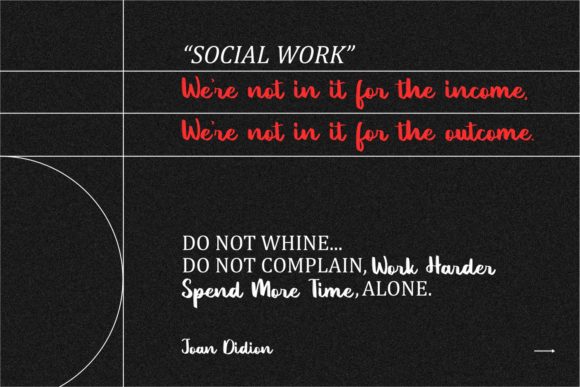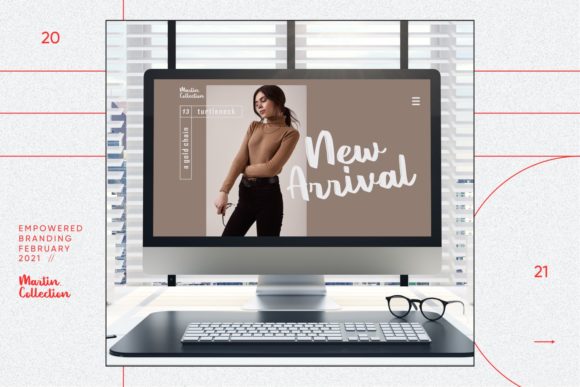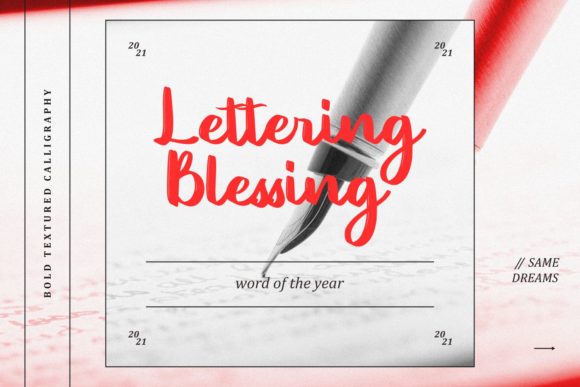
Introduction to Omniface Font
Have you ever stared at a blank canvas, trying to decide on the perfect font to bring your creative project to life? For designers, finding the right font can be the difference between a mediocre and a masterpiece. That’s why we’re excited to introduce you to the Omniface Font, a delightful and versatile script font that’s sure to elevate your designs.
With its soft, rounded letters and gentle brushstrokes, the Omniface Font is a design resource that’s both high quality and easy on the eyes. Whether you’re working on a branding project, creating a social media graphic, or designing a website, this font is sure to bring a touch of elegance and sophistication to your work. And the best part? It’s available for a free download, making it a valuable addition to any designer’s toolkit.
Key Features of Omniface Font
- High-quality design resource perfect for creative projects, offering a unique and modern aesthetic.
- Unique characteristics, such as its futuristic and futuristic-inspired design, set it apart from other fonts and make it a great choice for projects that require a bold and eye-catching look.
Honest Review: Omniface Font
I recently had the chance to try out the Omniface Font for a creative project, and I’m excited to share my honest thoughts with you.
What works well: ✨ The Omniface Font is a high-quality design resource with a unique style that can really elevate your design work. The transparent background makes it easy to use in a variety of creative contexts. The font is also incredibly versatile, suitable for both digital and print projects.
- Unique style
Any limitations: ⚠️ While the Omniface Font is generally a great resource, I did find that it’s not suitable for very small font sizes. The font also has a bit of a learning curve, so you may need to invest some time in getting to know its nuances.
Overall impression: The Omniface Font is a solid addition to any designer’s toolkit. While it may not be perfect, its unique style and high-quality design make it a great choice for creative projects.
Omniface Font
Design Resource
The Omniface Font is a versatile and high-quality design resource ideal for various creative projects. Its sleek and modern design makes it perfect for branding, advertising, and digital products.